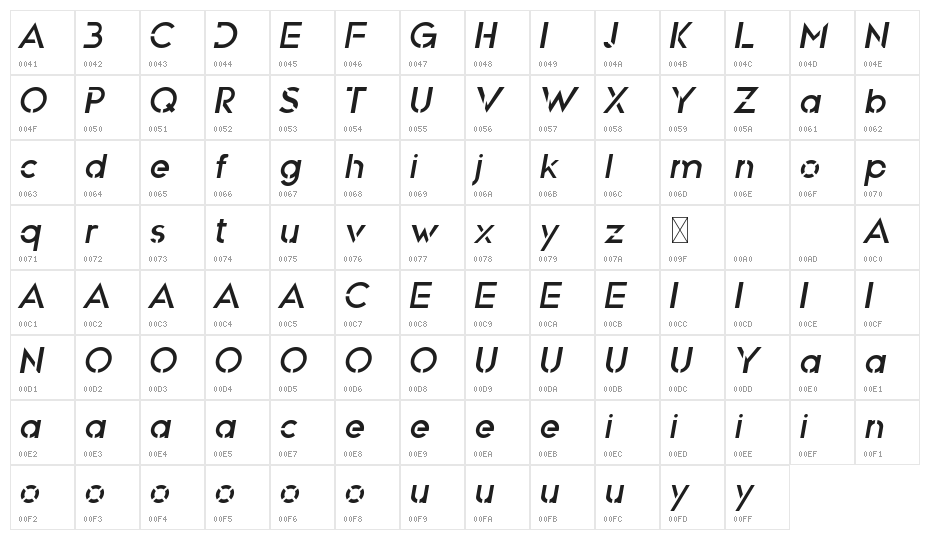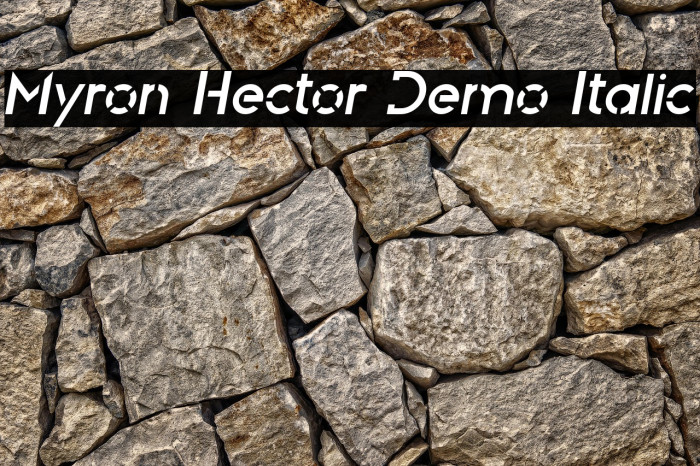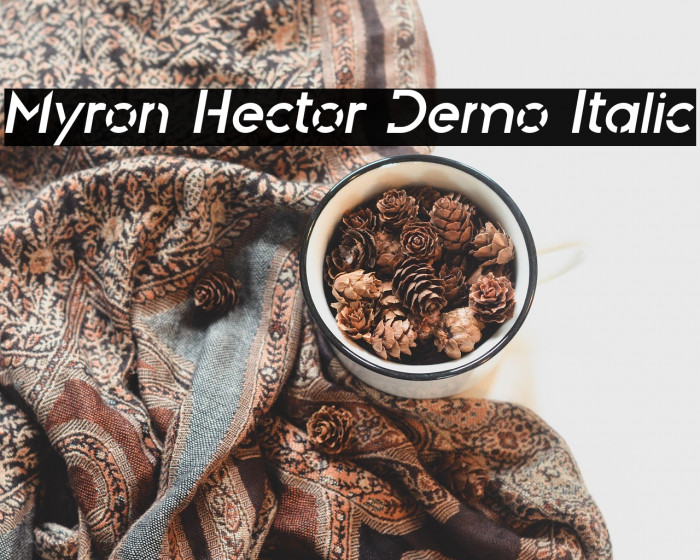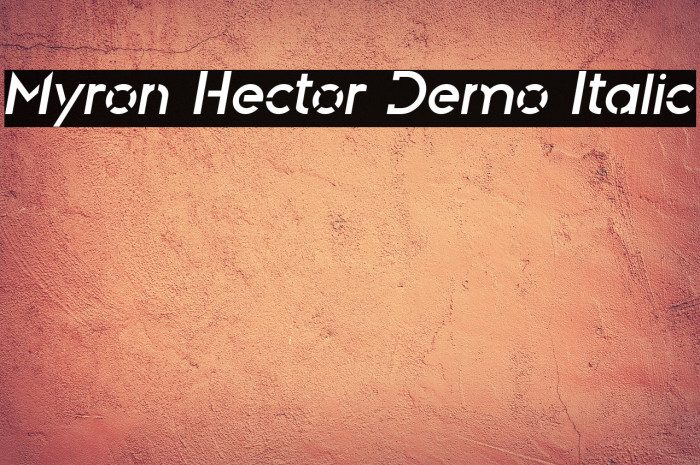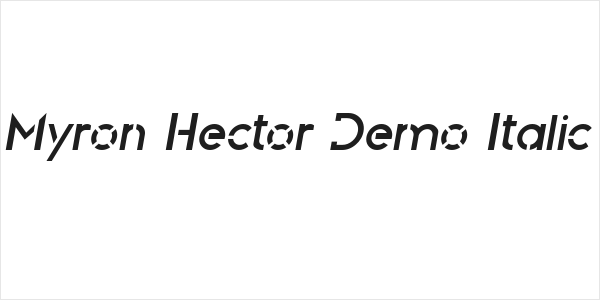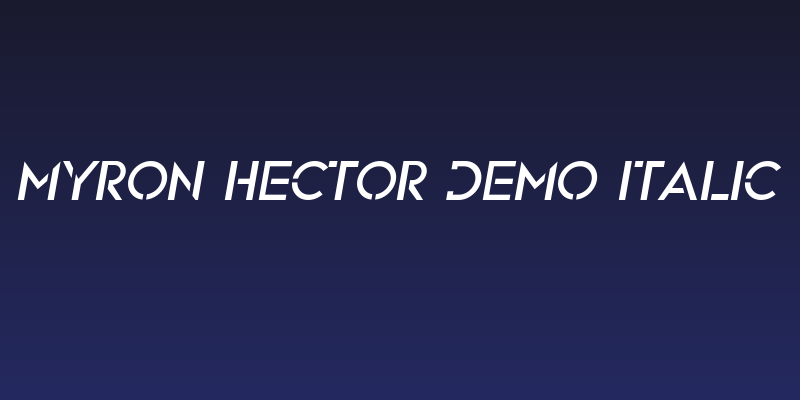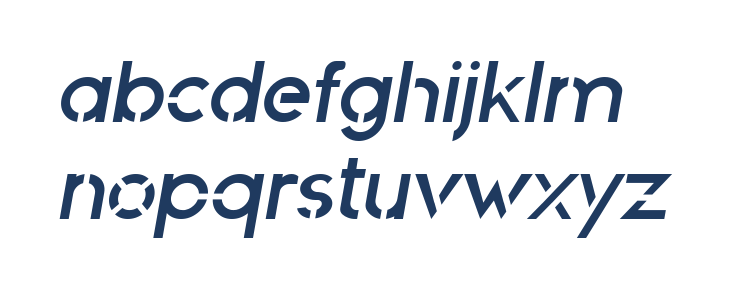
Myron Hector Demo Italic Font
Myron Hector Demo Italic Description
This font features a modern and dynamic design with a distinct italic slant, giving it a sense of motion and energy. The characters are bold and geometric, with sharp angles and clean lines that create a futuristic appearance. The uppercase and lowercase letters maintain a consistent style, with unique cutouts and curves that add visual interest. The numbers and special characters are designed to match the overall aesthetic, ensuring a cohesive look across all text elements. This font's bold presence makes it suitable for impactful headlines and branding projects.
| Proposed Projects | Ideal for branding, advertising, and headline designs where a strong, modern impression is desired. |